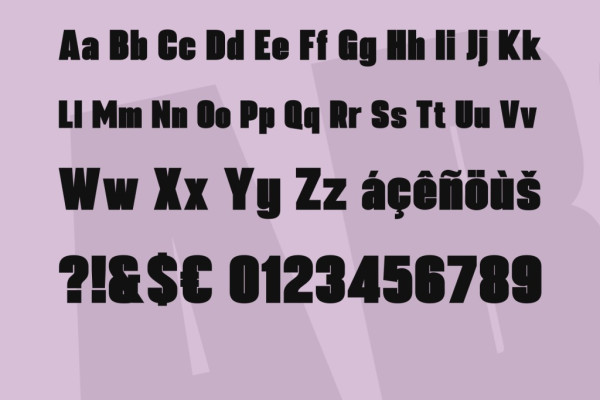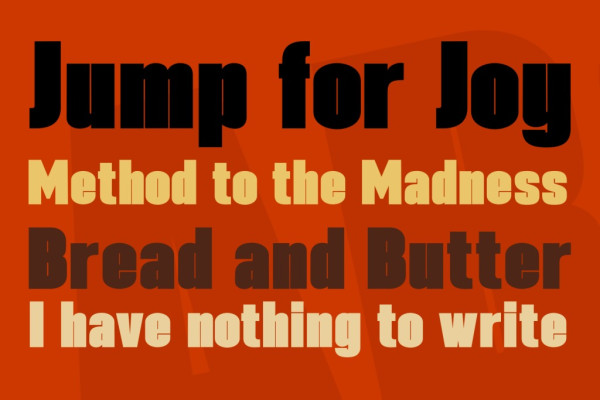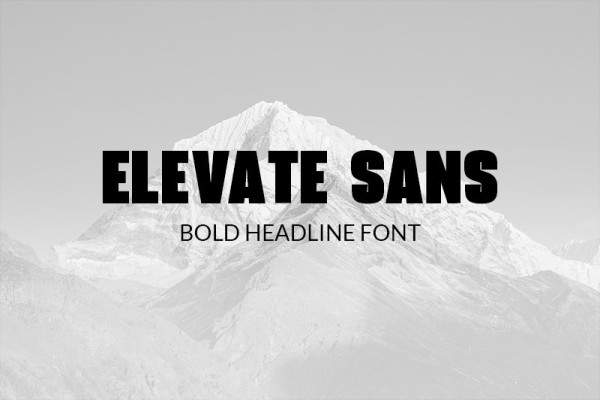
Elevate Sans Font Free is a bold sans serif font that’s perfect for headlines and other text that grabs attention. It includes uppercase and lowercase letters, plus numbers and basic punctuation.